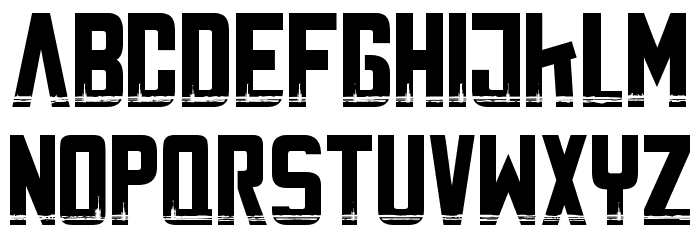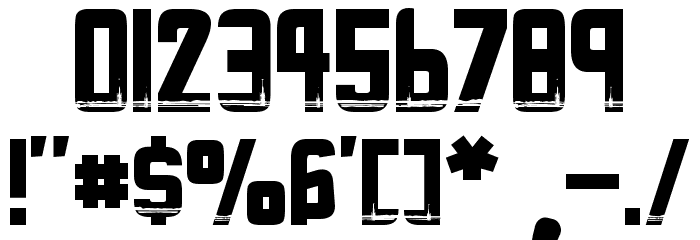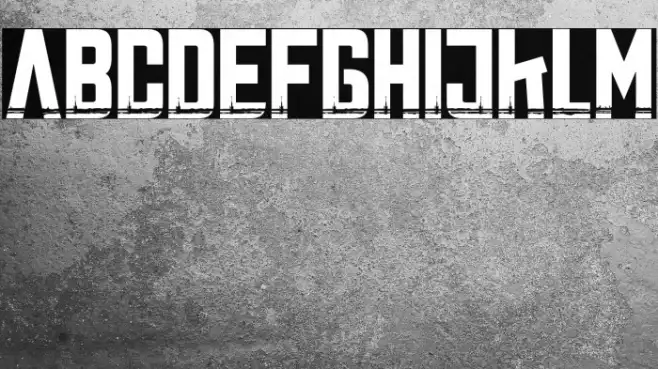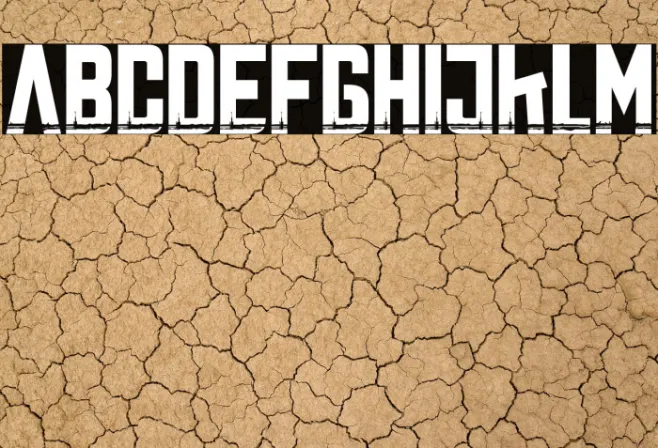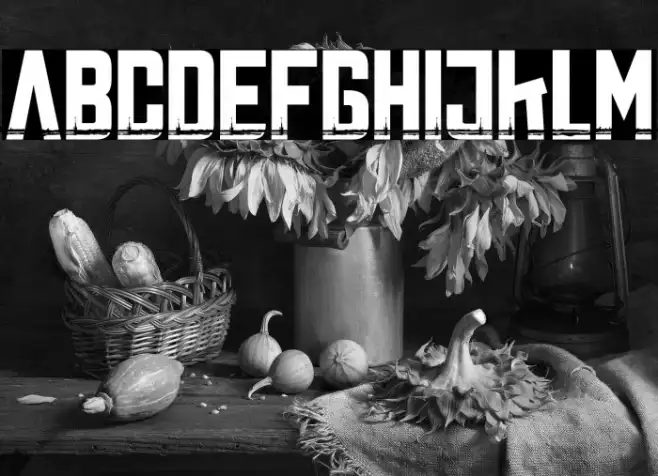
Battle Star Font
This font features a bold, futuristic design with a distinct stencil-like appearance. The characters are blocky and robust, with sharp angles and a unique distressed effect at the bottom, giving it a gritty, industrial feel. The uppercase and lowercase letters maintain a consistent style, emphasizing strength and modernity. Numbers and special characters are designed to match the boldness of the alphabet, making the font versatile for various applications. The overall aesthetic is reminiscent of sci-fi and action themes, making it suitable for projects that require a strong, impactful visual presence.
A bold, futuristic font with a stencil-like, distressed design.
- Font: Battle Star
- Proposed Projects: Ideal for sci-fi movie posters, video game titles, action-themed branding, and industrial design projects.
- Overall Style: Futuristic, Industrial